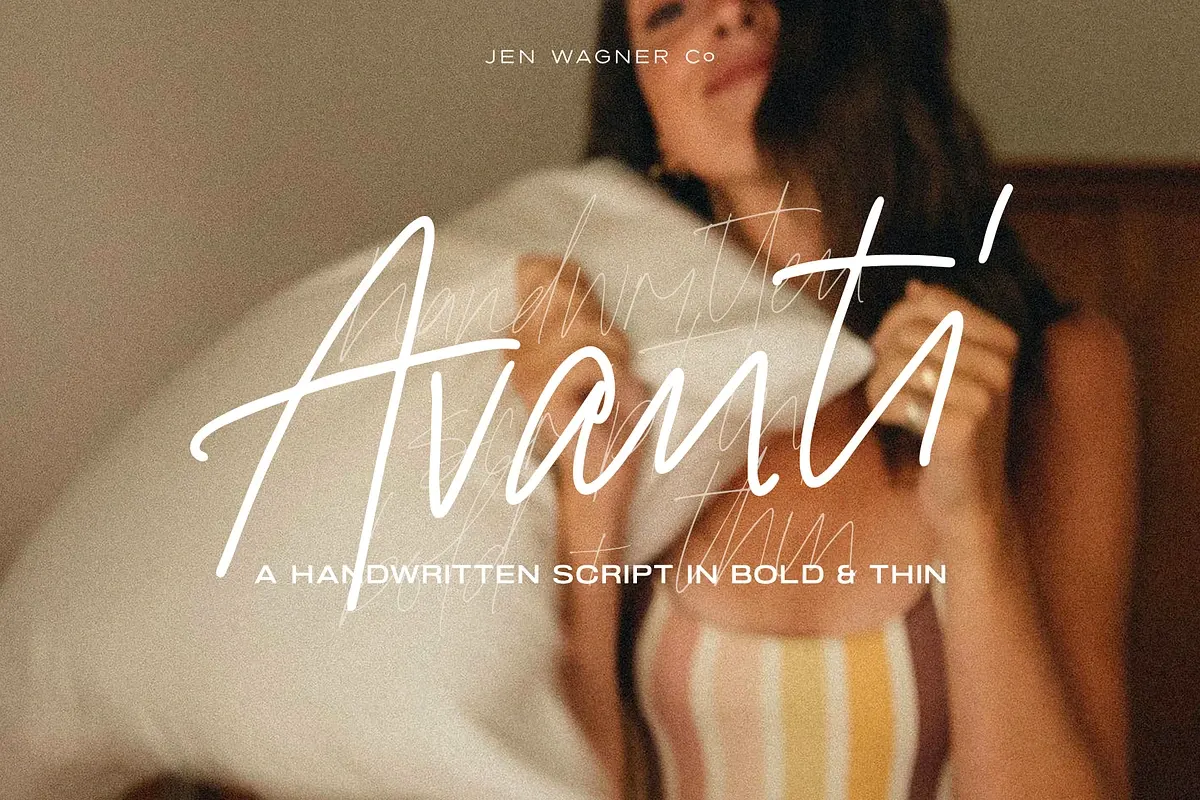
Avanti Casual Script in Bold & Thin Free Download
Stylish, versatile, and full of personality, Avanti Casual Script in Bold & Thin Free Download is a contemporary script typeface that comes in two distinct weights—bold and thin. Perfect for logos, invitations, branding, product packaging, and creative design projects, this font offers flexibility and elegance with a touch of casual charm.
The bold version adds impact and attention-grabbing style, while the thin version offers a more delicate, refined look. Together, they create a perfect pairing for projects that need to balance boldness with elegance.